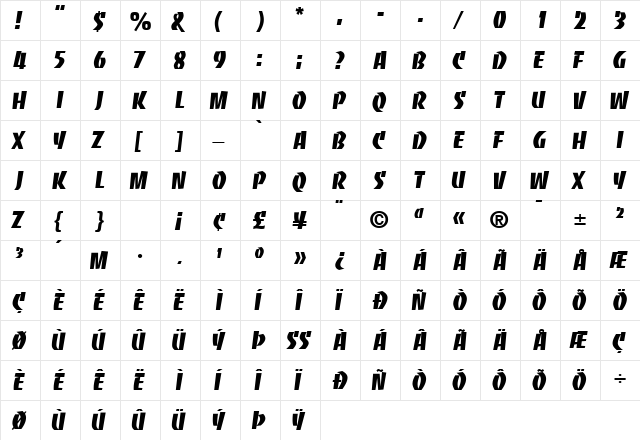
KickStartCapsSSK Regular
Design Context for KickStartCapsSSK Typeface
KickStartCapsSSK offers clean, dependable letterforms without strong stylistic allegiance, making it a practical choice for designers who need flexibility.
Pro Tip: Use KickStartCapsSSK in both headline and body roles to test its range before committing to a single application.